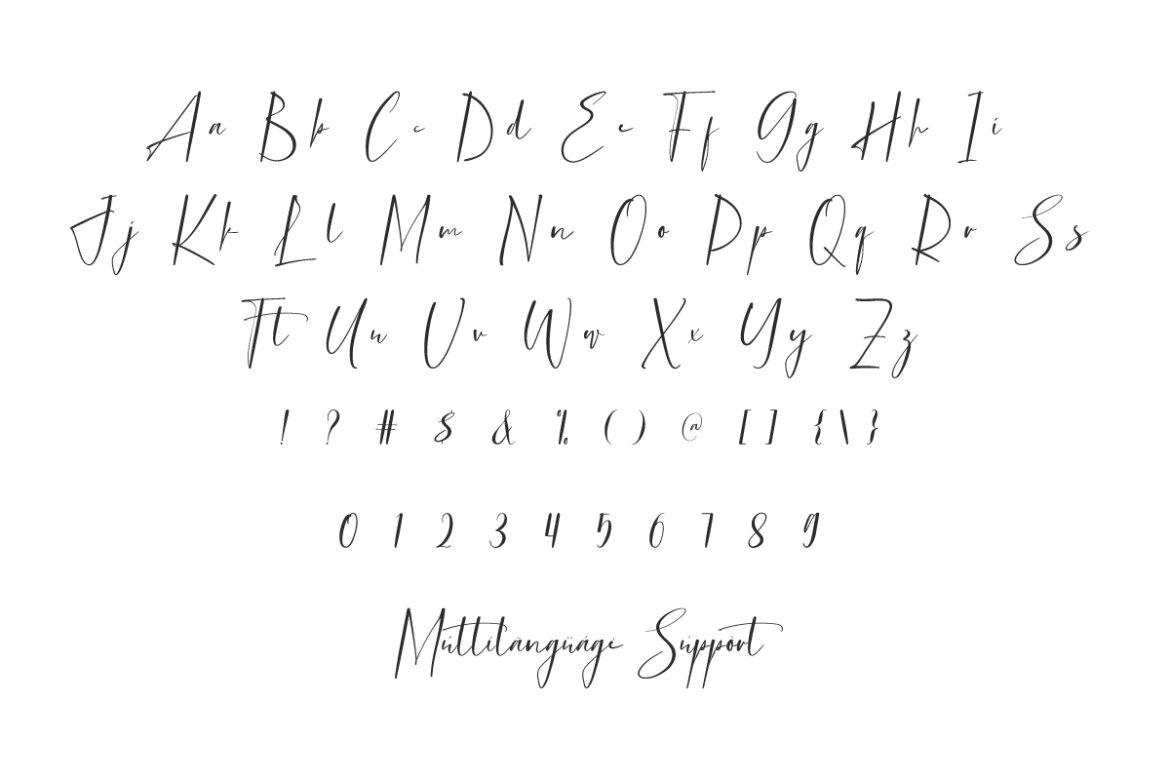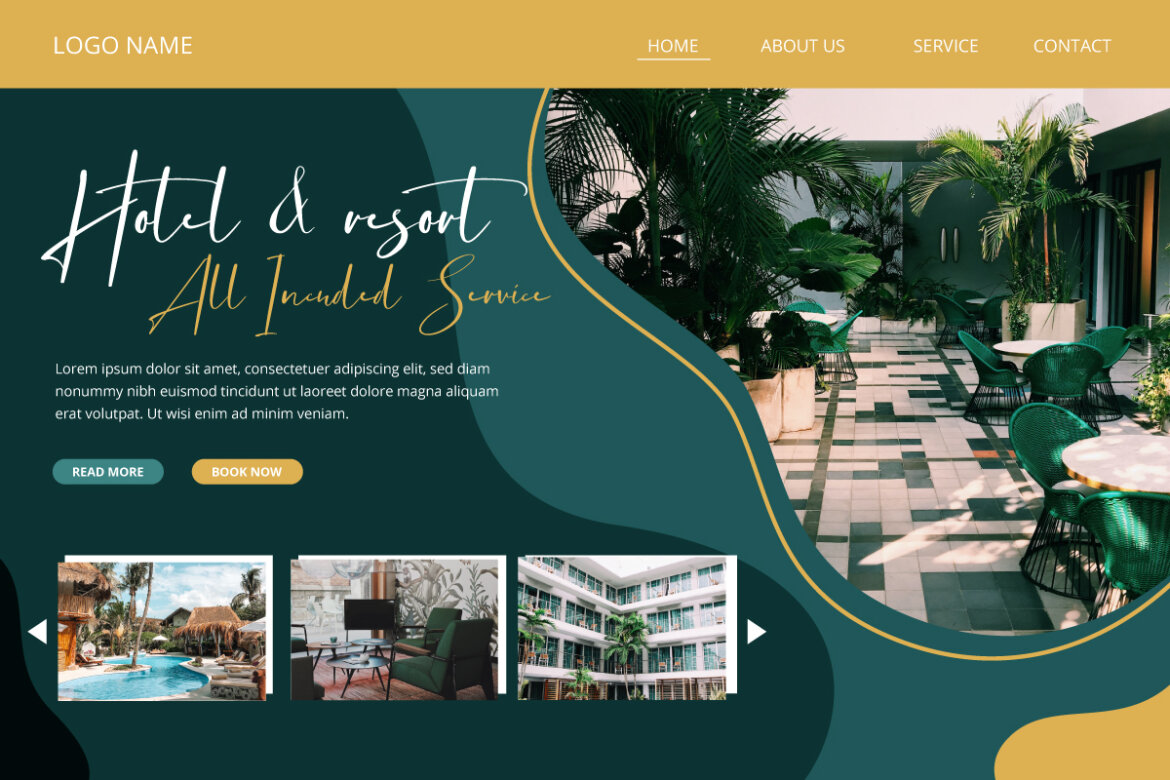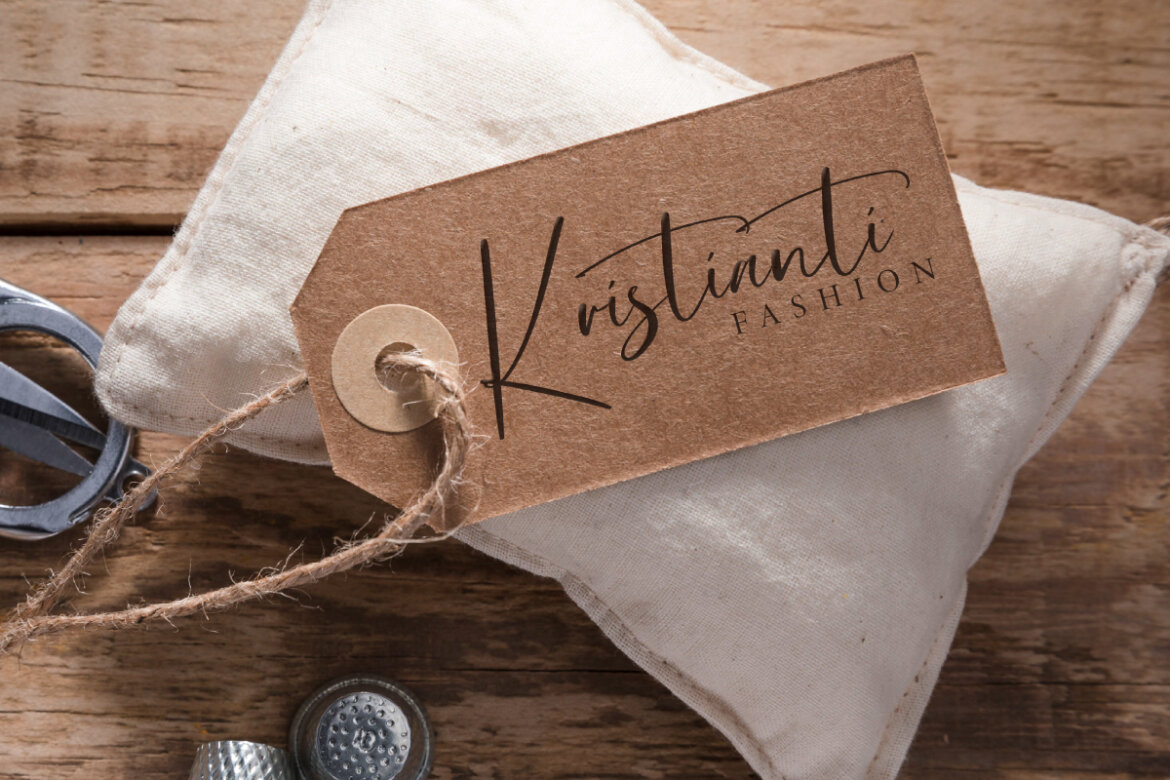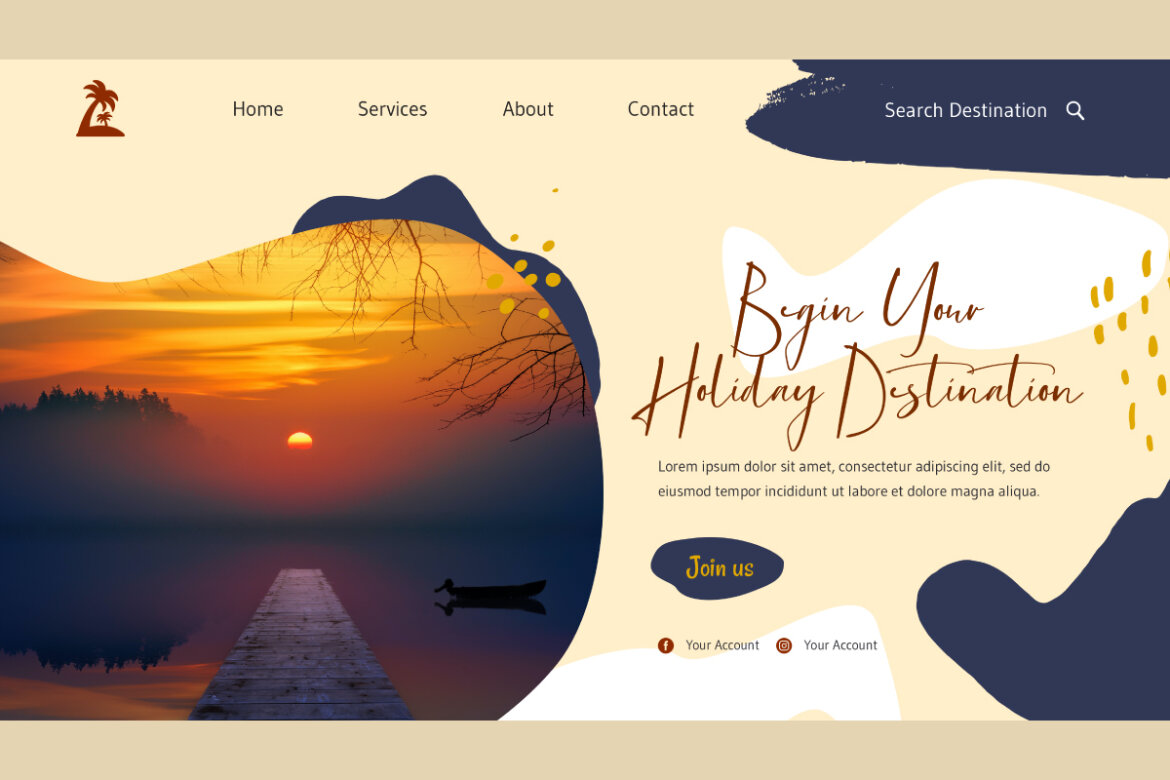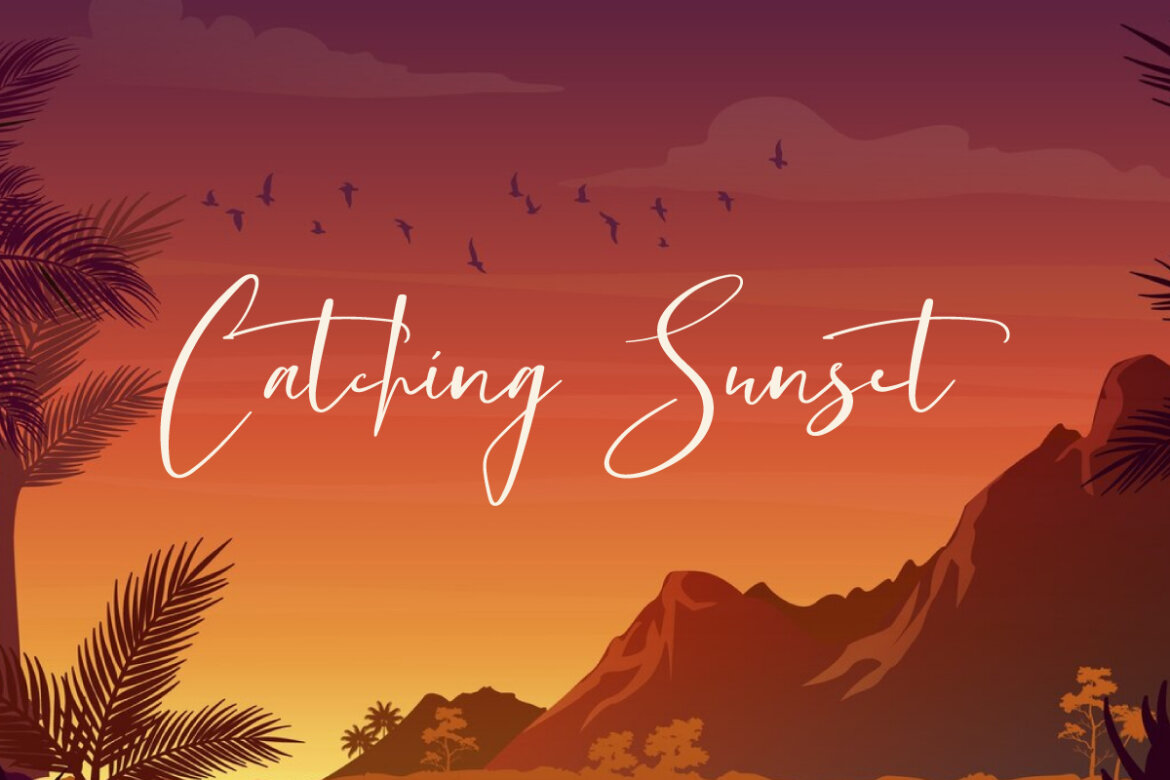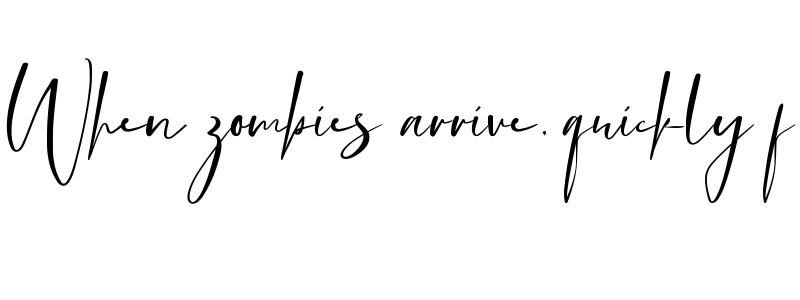
Catching Sunset
Catching Sunset Font is a whimsical and elegant handwritten font with a blend of script and signature styles that captures the relaxed yet sophisticated charm of a beachside retreat. Each character has a smooth, natural flowing stroke, making it perfect for adding a personal touch to blogs, card design, cover, greeting card, headers, label, logo, sticker, tags, template, title, website, etc.
Catching Sunset Font includes a complete set of Basic Uppercase and Lowercase Characters, Numbers, Punctuation Marks and Symbols. The font’s fluid curves and varied letterforms mimic the natural rhythm of handwriting, while its clean, gentle lines ensure readability. Ideal for both business and personal use, such as advertising, authors, fashion, graphic design, hotel, photography, resort, travel, printing, publishing, etc.